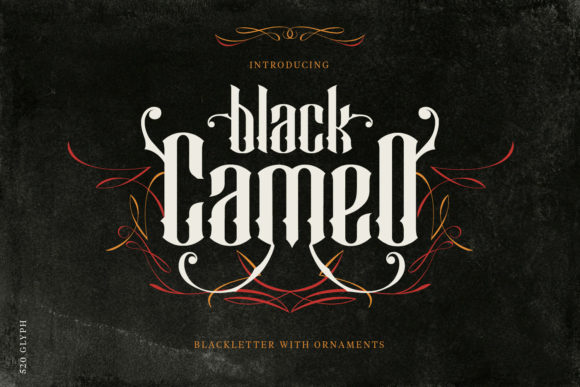
Black Cameo Font
Black Cameo Font is perfect for various design applications including luxury jewelry branding, elegant vintage boutiques, sophisticated portrait studios, classic beauty salon signage, refined antique store materials, heritage luxury brands, distinguished art gallery exhibitions, timeless wedding invitations, premium perfume packaging, and sophisticated feminine luxury communications. This distinguished typeface excels in projects requiring classic elegance and vintage sophistication that celebrates the timeless beauty of traditional luxury and refined feminine aesthetics.
What makes Black Cameo Font so exciting is its exquisite embodiment of vintage luxury and classical elegance through letterforms that suggest hand-carved cameo jewelry and the refined sophistication of Victorian-era craftsmanship. The font features ornate character details that mirror intricate jewelry work, elegant proportions that communicate luxury and refinement, and distinctive classical elements that evoke the timeless appeal of antique treasures and heirloom beauty. Its distinctive vintage character and luxurious sophistication make it perfect for luxury brands seeking to communicate heritage, exclusivity, and the enduring appeal of classical feminine elegance and vintage luxury.
Black Cameo Font family includes elegant weights and ornamental variations that enhance its versatility for different luxury applications. Each style maintains the font's signature vintage character while providing options for various classical design approaches. The family also features vintage decorative elements, classical flourishes, and luxury ornaments that can be combined with the letterforms to create cohesive heritage luxury design systems.
Whether you're developing luxury heritage brands, vintage-inspired products, or classical communications, Black Cameo Font Free Download provides distinguished typography that captures the essence of timeless elegance and celebrates the sophisticated beauty of vintage luxury and classical refinement. This typeface transforms ordinary communications into heirloom statements that promise exclusive quality and vintage sophistication. The font's luxurious appeal makes it particularly effective for jewelry brands, vintage boutiques, and luxury service providers targeting discerning customers who appreciate classical elegance and heritage luxury.
Black Cameo Font stands out by delivering authentic vintage luxury that feels genuinely classical rather than artificially antique or superficially ornate. Its carefully crafted vintage proportions and classical details ensure that designs feel authentically connected to heritage luxury traditions and vintage craftsmanship. From luxury jewelry branding to heritage boutique materials, this font provides designers with tools to create communications that celebrate classical elegance and inspire appreciation for vintage luxury through distinguished, cameo-inspired typography that embodies timeless sophistication and enduring beauty.